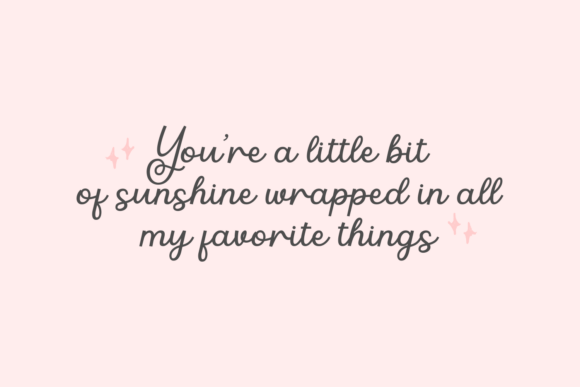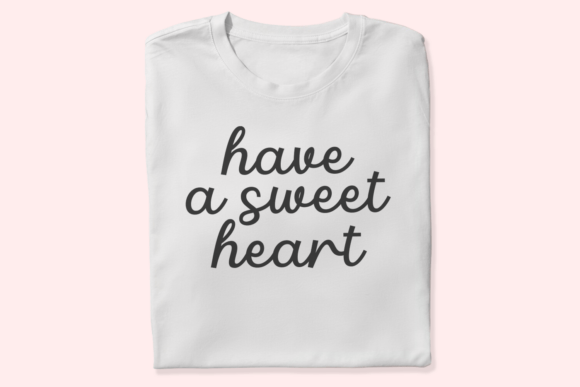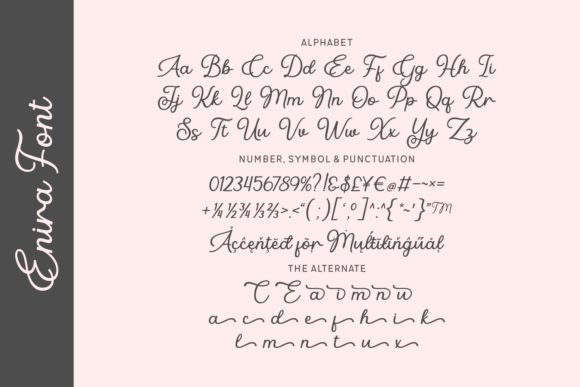
Introducing Enira Font: The Perfect Blend of Cuteness and Elegance
Are you a designer or crafter looking for a font that can add a touch of whimsy and sophistication to your projects? Look no further than Enira Font, a delightful script typeface that is sure to capture your heart. With its rounded lines, subtle flourishes, and casual elegance, Enira is the ideal choice for branding, kids-related projects, and cheerful packaging designs.
The Characteristics of Enira Font
Enira Font is a script typeface that boasts a unique combination of characteristics that set it apart from other fonts. Its rounded lines give it a soft and approachable feel, while its subtle flourishes add a touch of sophistication and elegance. The font’s casual vibe makes it perfect for projects that require a friendly and approachable tone.
What Makes Enira Font So Versatile?
Enira Font is an incredibly versatile font that can be used in a wide range of projects. Its cute and simple design makes it perfect for kids-related projects, such as children’s books, educational materials, and toys. At the same time, its elegant and sophisticated feel makes it suitable for high-end branding and packaging designs.
Perfect for Branding and Packaging Designs
Enira Font is an excellent choice for branding and packaging designs that require a touch of whimsy and sophistication. Its casual elegance makes it perfect for food packaging, cosmetics, and lifestyle brands that want to convey a friendly and approachable tone. The font’s unique design also makes it stand out from more traditional fonts, ensuring that your brand will leave a lasting impression on your customers.
Kids-Related Projects Made Easy
Enira Font is a dream come true for designers working on kids-related projects. Its cute and playful design makes it perfect for children’s books, educational materials, and toys. The font’s rounded lines and subtle flourishes also make it easy to read, ensuring that your message will be conveyed clearly and effectively.
Tips for Using Enira Font Effectively
To get the most out of Enira Font, here are a few tips to keep in mind:
- Use Enira Font in large sizes to make a bold statement, or in smaller sizes to add a touch of whimsy to your design.
- Pair Enira Font with other fonts to create a unique and visually appealing combination.
- Don’t be afraid to get creative and try out new and innovative uses for Enira Font.
Why Choose Enira Font?
So why choose Enira Font over other fonts? Here are just a few reasons:
- Unique and distinctive design that will set your project apart from the crowd.
- Versatile and adaptable, making it suitable for a wide range of projects.
- Easy to read and understand, ensuring that your message will be conveyed clearly and effectively.
- Perfect for designers and crafters who want to add a touch of whimsy and sophistication to their projects.
In conclusion, Enira Font is a delightful script typeface that is sure to capture your heart. With its rounded lines, subtle flourishes, and casual elegance, it is the perfect choice for branding, kids-related projects, and cheerful packaging designs. Whether you’re a designer or crafter, Enira Font is an excellent addition to your font collection. So why wait? Download Enira Font today and start creating your own unique and visually appealing projects!